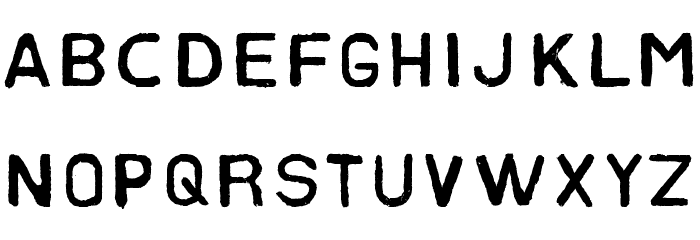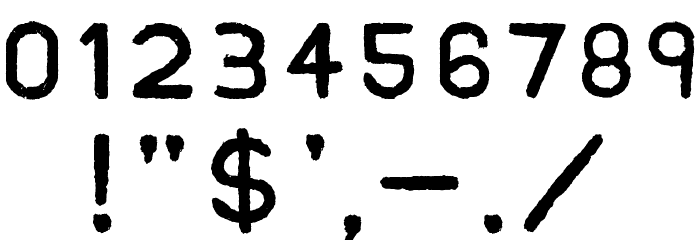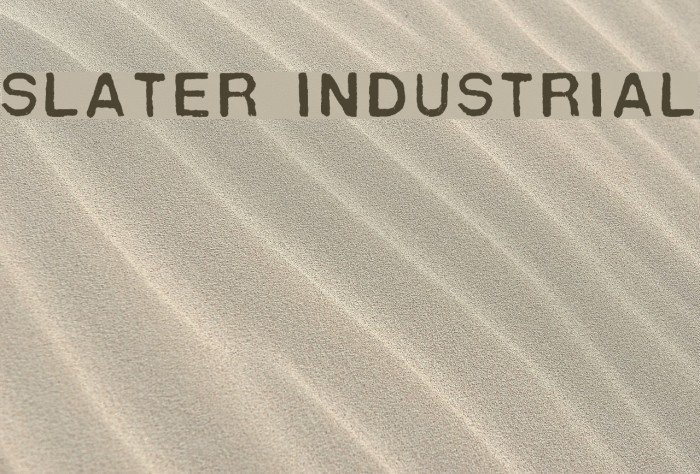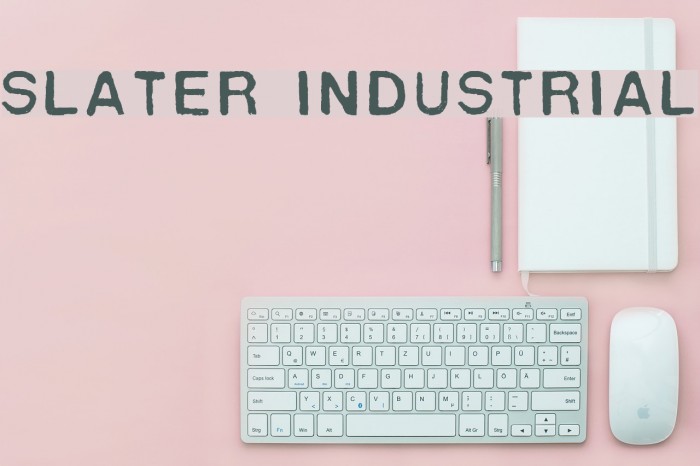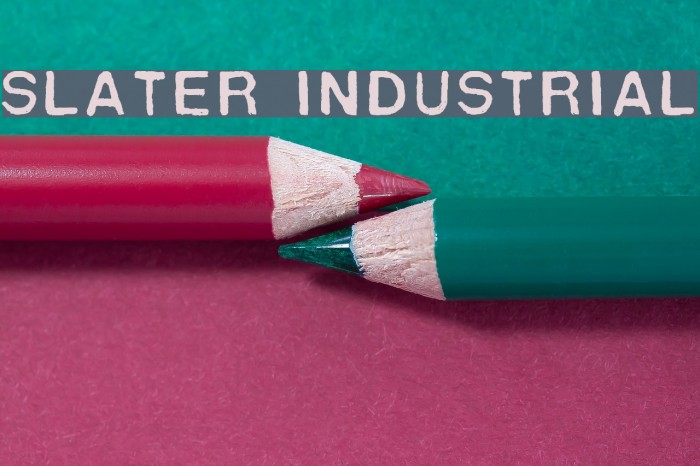
Slater Industrial Font
This font exudes a rugged, industrial charm with its bold, stencil-like appearance. The characters are uniformly structured, featuring a slightly distressed texture that adds a vintage feel. The uppercase letters are prominent and assertive, while the numerals and special characters maintain the same robust style. The font's design is reminiscent of industrial signage or military stencils, making it ideal for projects that require a strong, impactful visual statement. Its legibility and distinctiveness make it suitable for various applications, from branding to poster design.
A bold, industrial-style font with a stencil-like, vintage appearance.
- Proposed Projects: Ideal for branding, poster design, industrial-themed projects, and signage.
- Overall Style: Vintage, Industrial
- Use Case: Headlines, Logos, Signage